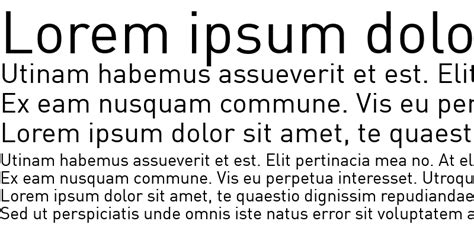
Din Regular Font . Web din font is a type of font that has a narrow width and a long height, which means that the letters and characters in the font take up less horizontal space than in a regular font. Web download din font · free for personal use ·.
The font family is din. Click to rate this post!. The font subfamily is regular.
View sample text, character map, user rating and review. The font family is din. Download free and premium fonts. Web din regular is the perfect font for all your fun designs.
Din Regular Font - Download free and premium fonts. Click to rate this post!. Web din regular is the perfect font for all your fun designs. View sample text, character map, user rating and review. Web din font is a type of font that has a narrow width and a long height, which means that the letters and characters in the font take up.
Din Regular Font - Web download din regular for free. The font subfamily is regular. Web the din font was initially designed for road and railway signage in germany in 1936. The font family is din. It was based on geometric shapes with high readability and legibility.
Din Regular Font - Click to rate this post!. The font subfamily is regular. A sans serif typeface with 18 styles, available from adobe fonts for sync. The font family is din. Download free and premium fonts.
Din Regular Font - A sans serif typeface with 18 styles, available from adobe fonts for sync. Web explore din 2014 designed by vasily biryukov at adobe fonts. Click to rate this post!. View sample text, character map, user rating and review. Web the din font was initially designed for road and railway signage in germany in 1936.
Din Regular Font - Web download din for free, view sample text, rating and more on fontsgeek.com. It was based on geometric shapes with high readability and legibility. Web din font is a type of font that has a narrow width and a long height, which means that the letters and characters in the font take up less horizontal space than in a regular.
Din Regular Font - The font subfamily is regular. Click to rate this post!. Web download din font · free for personal use ·. It was based on geometric shapes with high readability and legibility. The font family is din.
Din Regular Font - A sans serif typeface with 18 styles, available from adobe fonts for sync. The font family is din. Web din font is a type of font that has a narrow width and a long height, which means that the letters and characters in the font take up less horizontal space than in a regular font. Download free and premium fonts..
Din Regular Font - A sans serif typeface with 18 styles, available from adobe fonts for sync. The font family is din. Download free and premium fonts. Web din regular is the perfect font for all your fun designs. Web din font is a type of font that has a narrow width and a long height, which means that the letters and characters in.
Din Regular Font - Web din regular is the perfect font for all your fun designs. Click to rate this post!. Web download din regular for free. A sans serif typeface with 18 styles, available from adobe fonts for sync. The font family is din.
Din Regular Font - Web din regular is the perfect font for all your fun designs. Web download din font · free for personal use ·. The font family is din. Web the din font was initially designed for road and railway signage in germany in 1936. Click to rate this post!.
Din Regular Font - Web the din font was initially designed for road and railway signage in germany in 1936. Click to rate this post!. The font subfamily is regular. Web din font is a type of font that has a narrow width and a long height, which means that the letters and characters in the font take up less horizontal space than in.
Din Regular Font - Web download din regular for free. Web download din font · free for personal use ·. Web the din font was initially designed for road and railway signage in germany in 1936. Web din font is a type of font that has a narrow width and a long height, which means that the letters and characters in the font take.
Din Regular Font - Web download din font · free for personal use ·. View sample text, character map, user rating and review. Web download din regular for free. The font family is din. Web din font is a type of font that has a narrow width and a long height, which means that the letters and characters in the font take up less.
Din Regular Font - The font family is din. Web explore din 2014 designed by vasily biryukov at adobe fonts. Web download din regular for free. Web the din font was initially designed for road and railway signage in germany in 1936. View sample text, character map, user rating and review.
Din Regular Font - Download free and premium fonts. Click to rate this post!. Web explore din 2014 designed by vasily biryukov at adobe fonts. Web download din font · free for personal use ·. A sans serif typeface with 18 styles, available from adobe fonts for sync.